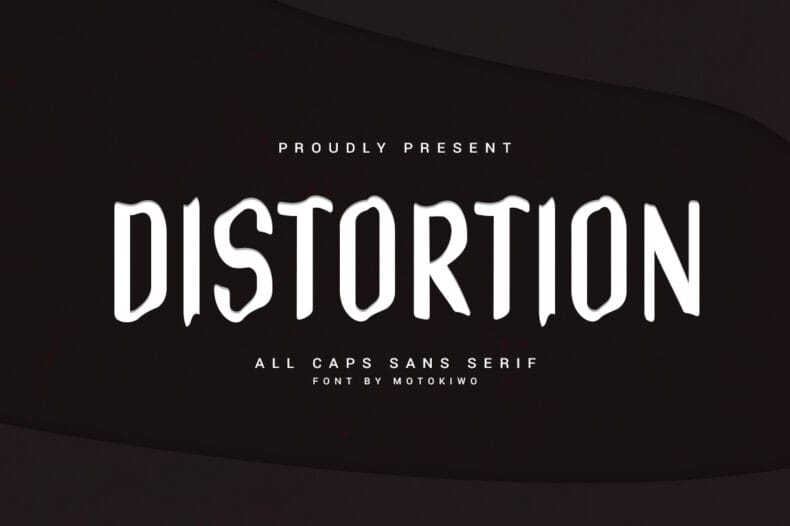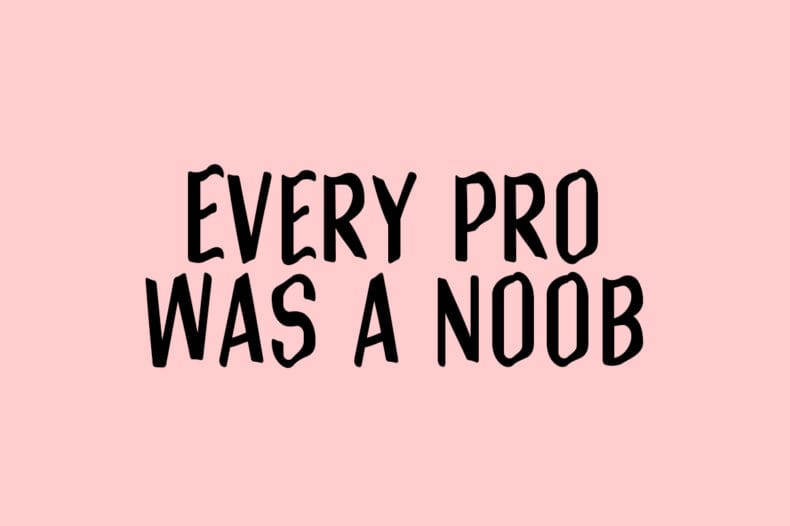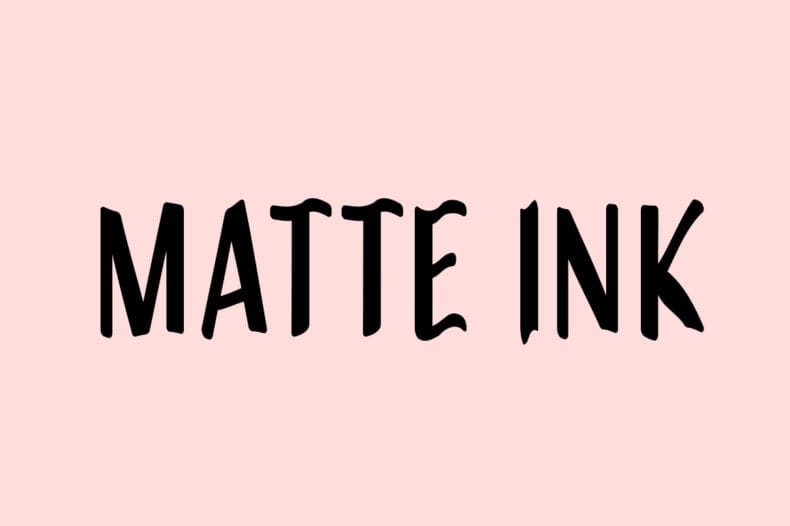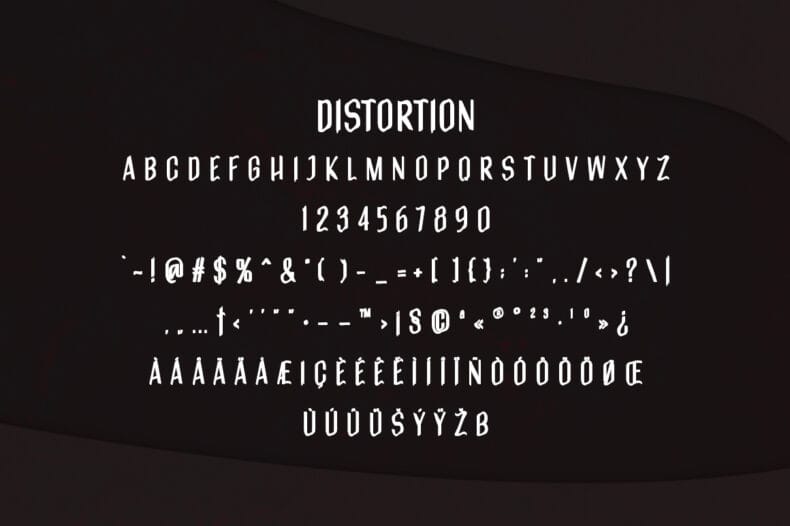
Distortion is an all-caps sans serif font with irregular, wavy letterforms. Explore it for playful headlines and casual display designs with an offbeat character.
Distortion brings a deliberately uneven visual rhythm to a short title or message. Try it in a colorful poster, an experimental graphic, or a lighthearted campaign concept where conventional straight lettering would feel too formal.
The font includes multilingual characters. Preview your actual wording and check it at the final size, giving the surrounding layout enough simplicity for the wavy forms to remain clear.